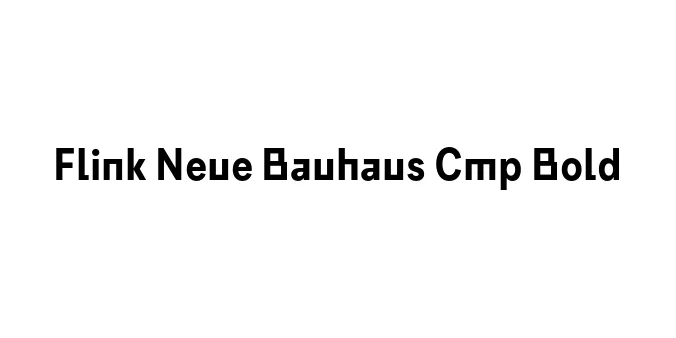
Flink Neue Bauhaus Cmp Bold
Designed by Nils Thomsen (TypeMates)
| Category | Geometric Sans Serif |
Flink Neue Bauhaus Cmp Bold is a striking contemporary interpretation of the geometric sans-serif tradition, rooted deeply in the principles of the early 20th-century Bauhaus movement. This specific weight focuses on a compressed, heavy-set structure that maximizes vertical presence while adhering to clean, mathematical proportions. The typeface is characterized by its high x-height and consistent stroke weight, which allows it to maintain exceptional clarity even in dense display environments.
Developed as part of the broader Flink Neue family, the Bauhaus Compressed variant bridges the gap between mid-century modernism and modern digital utility. Its bold architecture makes it an ideal choice for designers seeking a typeface that commands attention without sacrificing the structural integrity of geometric design. It reflects a sophisticated balance of form and function, making it a versatile tool for high-impact visual communication.
Flink Neue Bauhaus Cmp Bold Best Uses
Perfect for striking headlines in magazines or digital publications.
High-impact messaging for posters, banners, and billboards.
Creating strong, geometric logos and visual identity systems.
Bold section titles that command immediate attention.